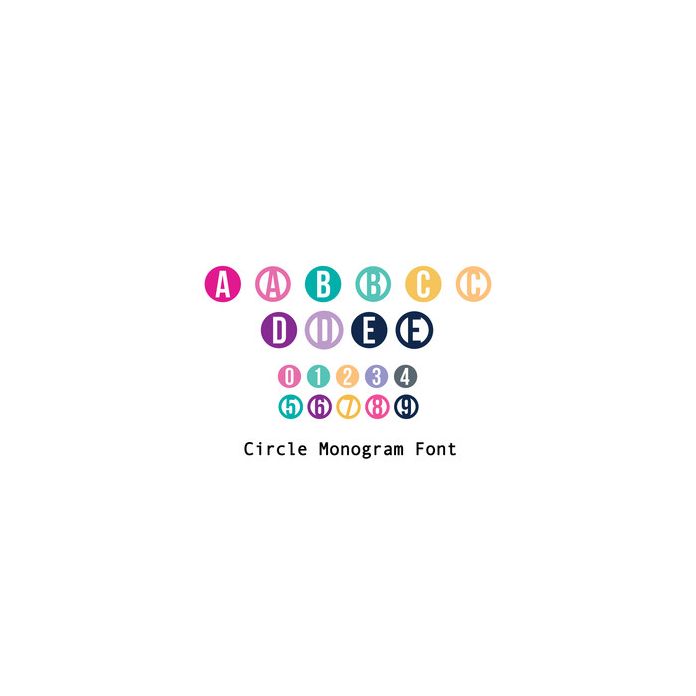
Circle Monogram Font. Hand drawn font, including upper and lower case letters - solid and frame circles and matching numbers. For more design ideas, coordinating designs & products and inspiration, please visit my blog http://www.sarahhurleyblog.com